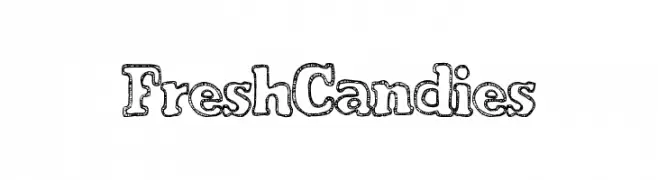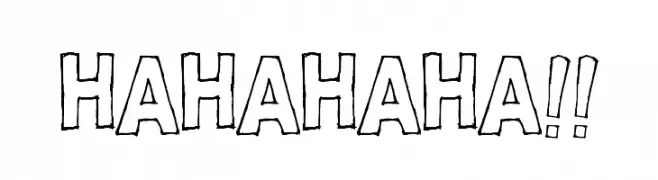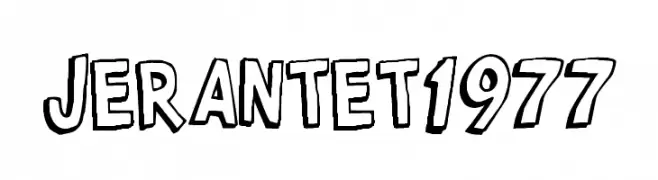
A playful, outlined decorative font with a hand-drawn, whimsical style.
A playful, hand-drawn font with a bold, cartoonish style.
A playful, hand-drawn font with bold, outlined characters.